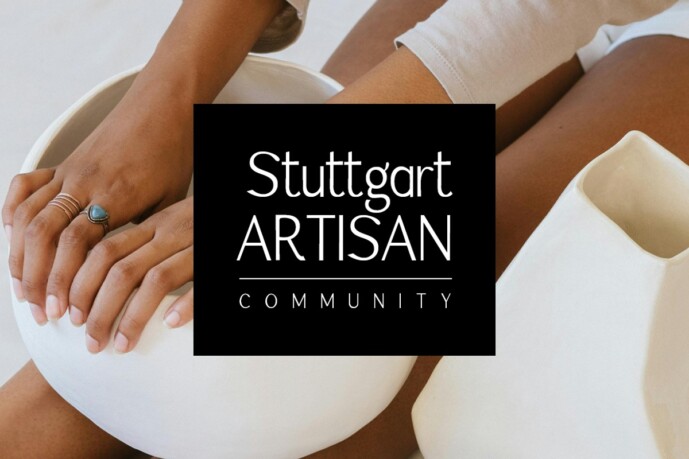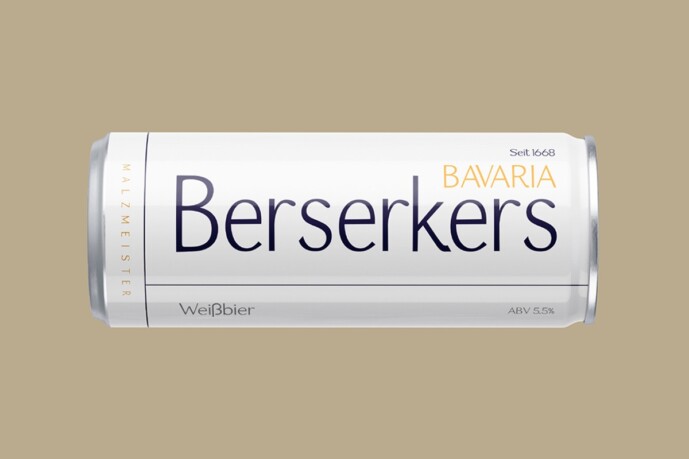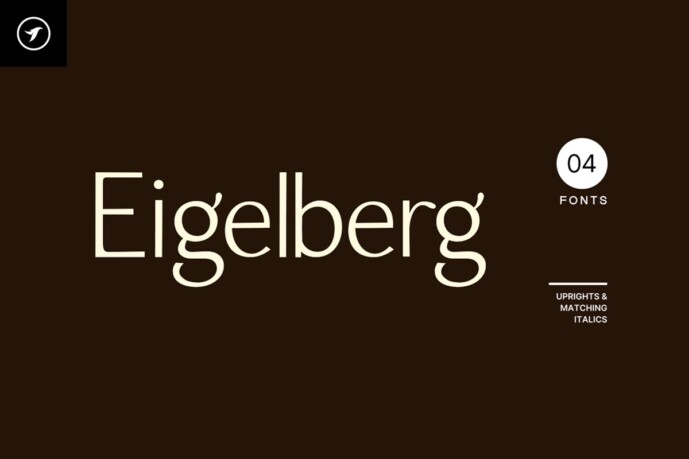
Eigelberg Font
Eigelberg Font is a unique typeface that evokes a sense of nostalgia and a distinctive charm that sets it apart. This timeless font will add a touch of gravitas and grandeur to any project. Perfect for creating a vintage identity and giving your text a touch of sophistication, this one-of-a-kind font is sure to stand out and make an impact
Eigelberg Font can be used for multi-purpose textual representations as well as branding, logotypes, and display purposes. It is especially suitable for creating exceptional logos, promotional content, and marketing graphics that can capture your visitors’ attention. By adjusting the letterspacing of the font, you can have more design options for your creative projects. Take a look at the examples above to get a better idea of the potential of this typeface.